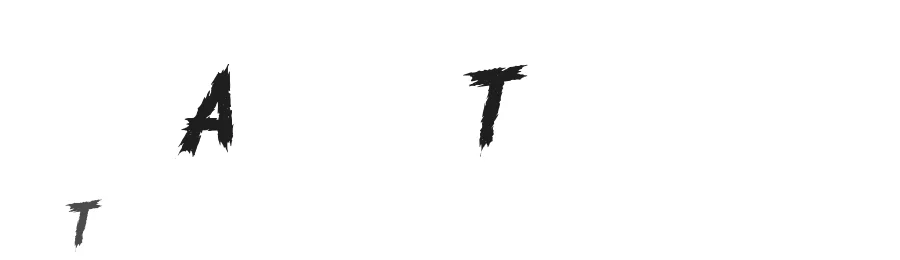
About Nightmare Font
Nightmare is a script & handwritten font designed by Linafis Studio. It includes 96 glyphs, a regular weight, TTF (TrueType) format, and 104 languages. Nightmare is free to download; check the license details on this page before commercial use. Script & handwritten fonts like Nightmare work best for wedding invitations, greeting cards, signatures, and elegant branding.
Nightmare Font is a script font that shines as a display or heading face. Pair it with a clean sans-serif or serif font for body text β the contrast creates a clear hierarchy while the two styles stay balanced and easy to read.
Nightmare Font
Nightmare Font is a script handwritten typeface by Linafis Studio, ideal for logos, invitations, branding, and creative projects.